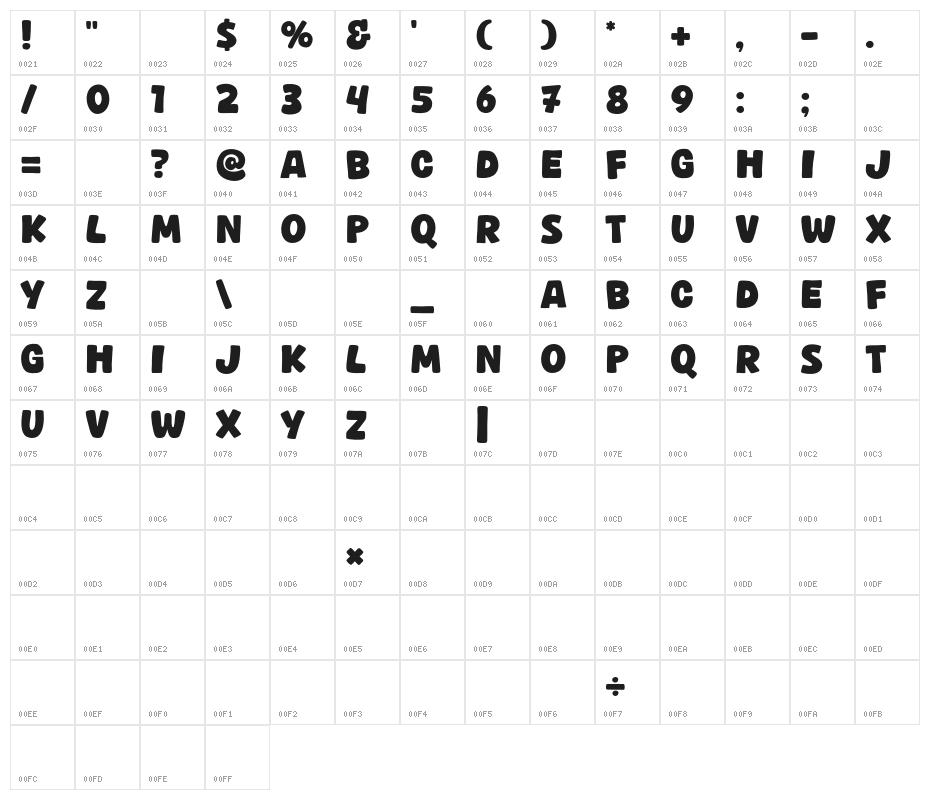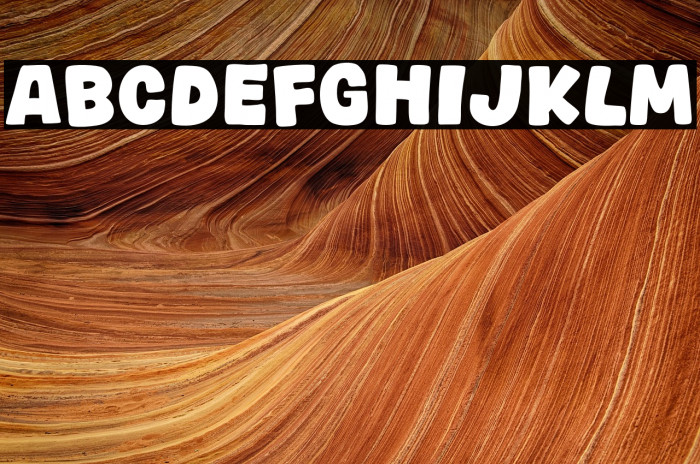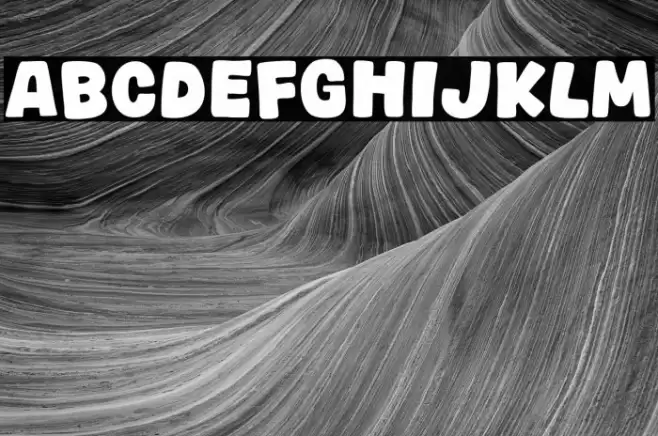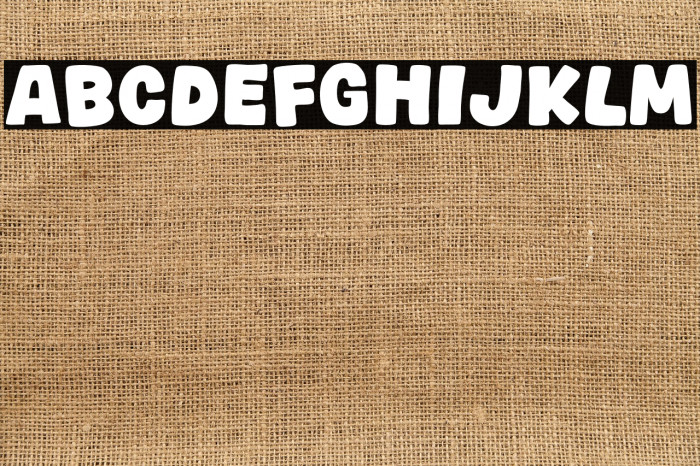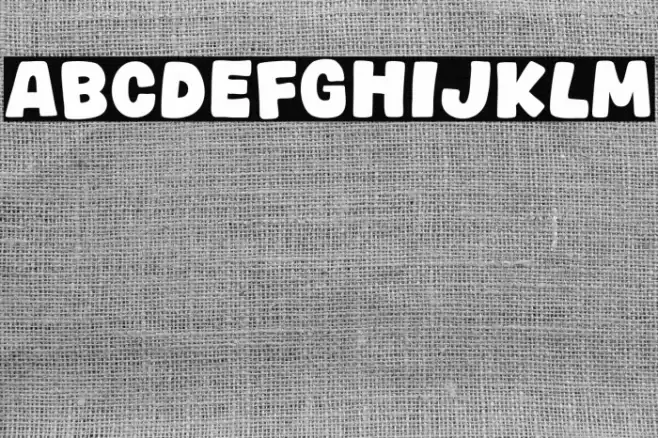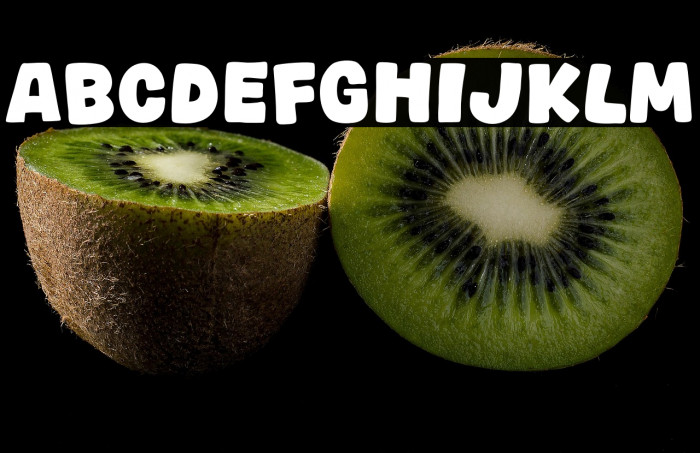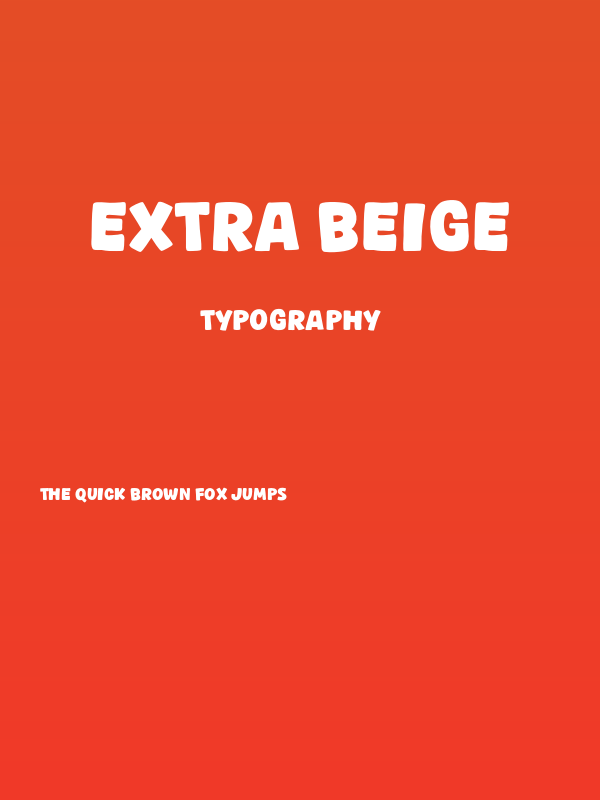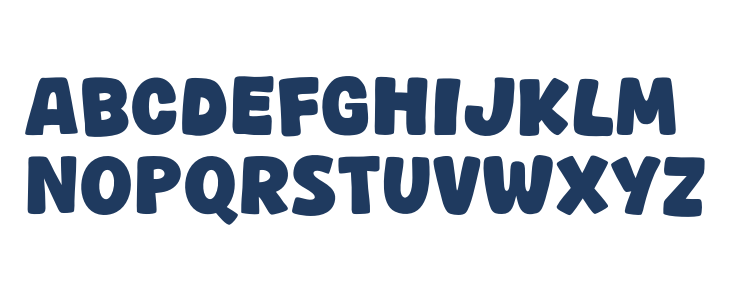
Extra Beige Font
Extra Beige Description
This font features bold, rounded characters with a playful and friendly appearance. The letters are thick and have a consistent weight throughout, giving them a strong presence. The rounded edges and slightly irregular shapes contribute to a casual and approachable feel, making it suitable for informal and fun designs. The numbers and special characters maintain the same style, ensuring a cohesive look across all elements. This font's unique style makes it stand out, ideal for projects that require a touch of whimsy and creativity.
| Proposed Projects | Ideal for children's books, playful branding, posters, and creative social media graphics. |